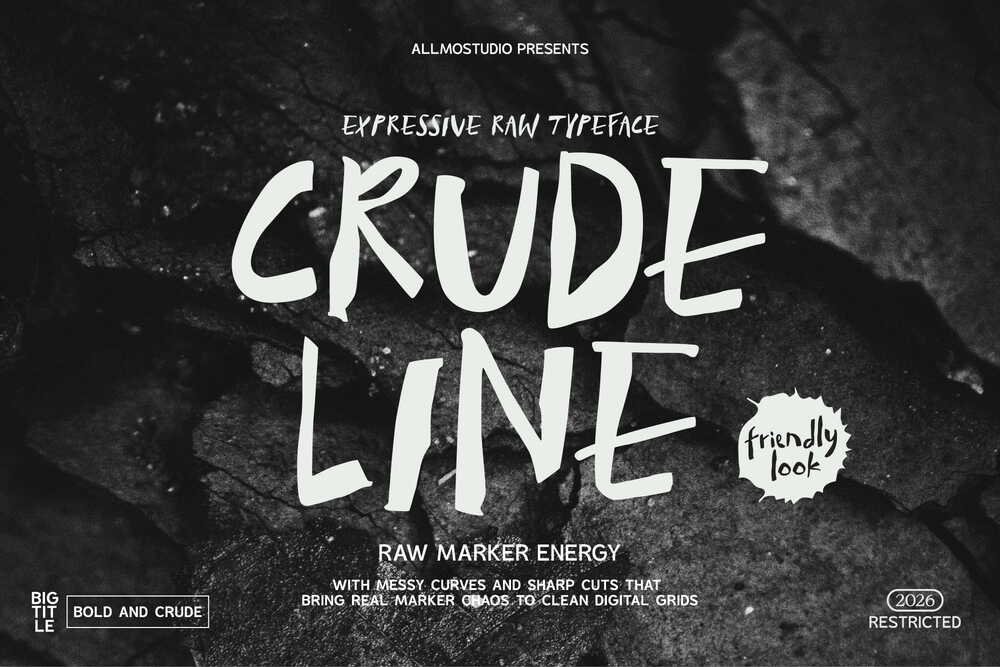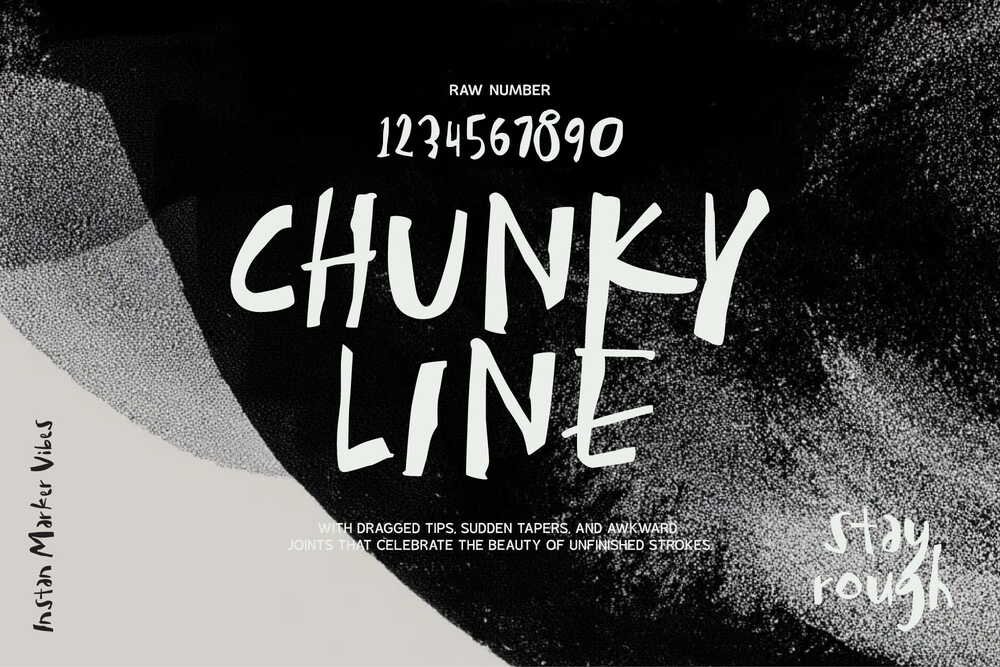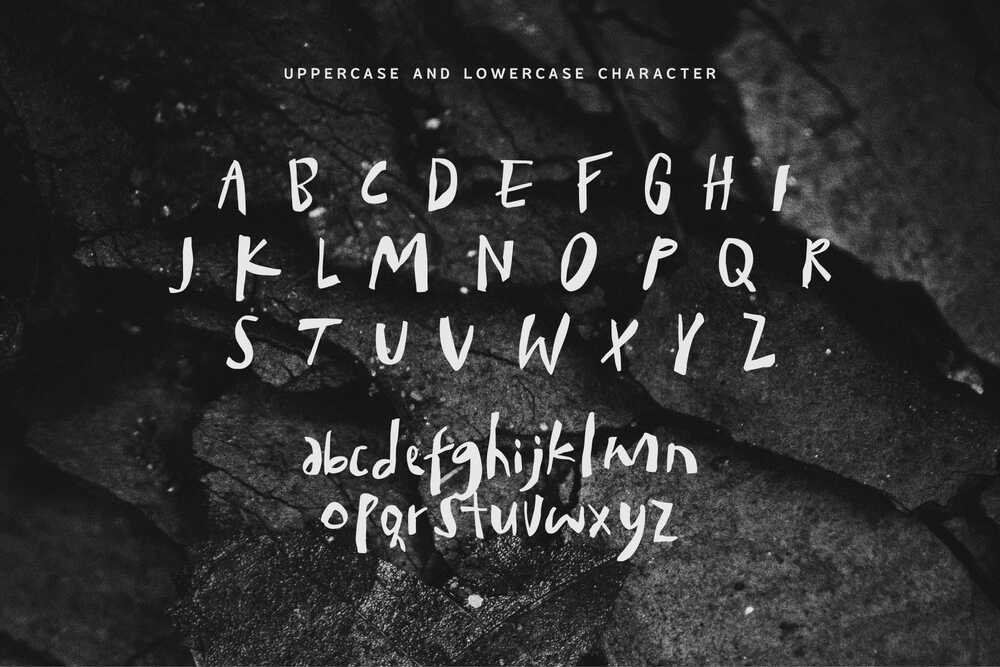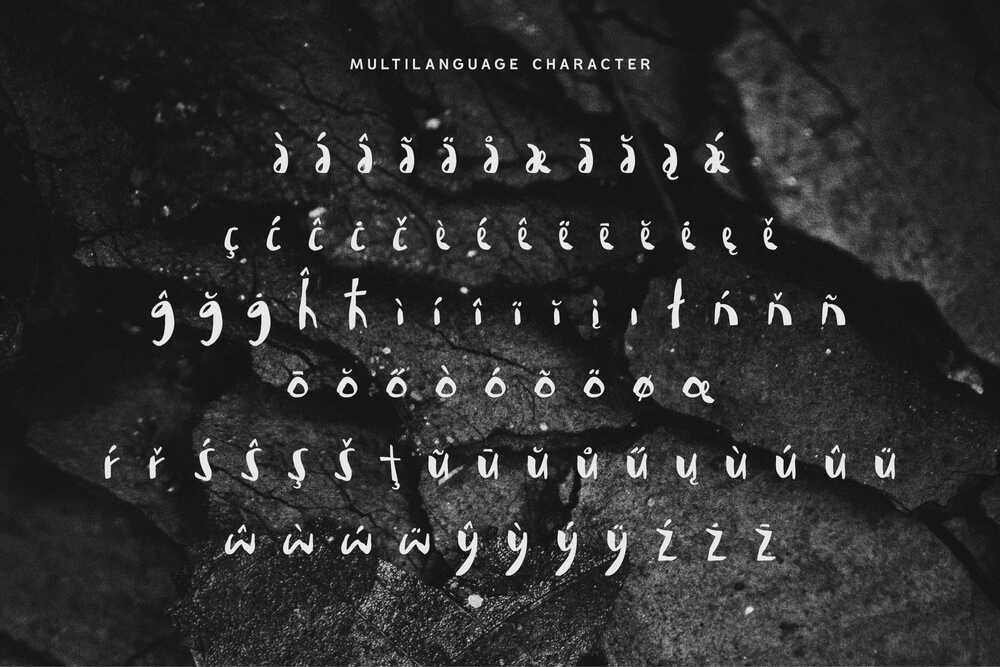
CRUDE LINE is an expressive raw marker font defined by its messy curves and sharp, uneven cuts, crafted to deliver a bold, energetic, and authentic hand-drawn look. It’s the perfect choice for big titles, streetwear branding, album art, posters, and social media graphics that demand raw marker energy with a friendly personality.
Its bold, imperfect characters are designed to bring organic chaos to clean digital designs, making it an essential typeface for creatives seeking a blend of hand-drawn authenticity and powerful visual impact.